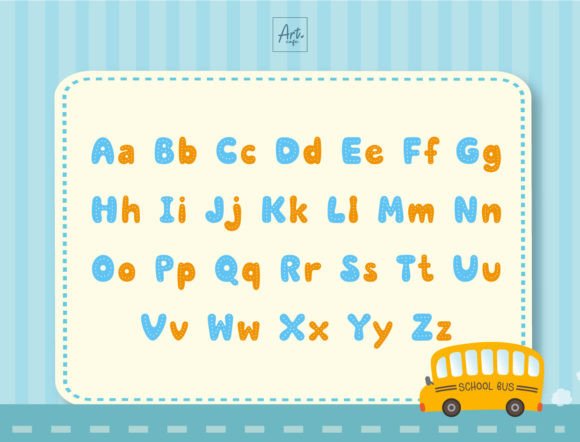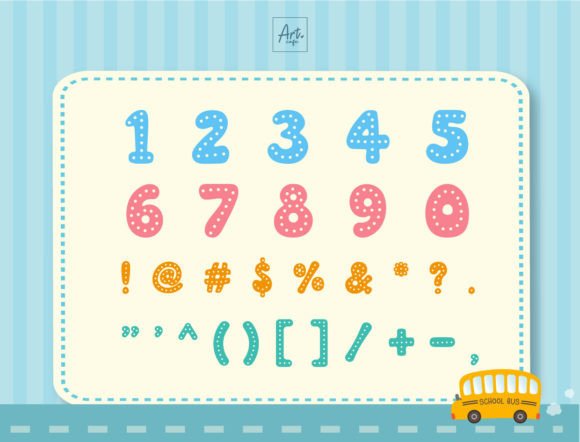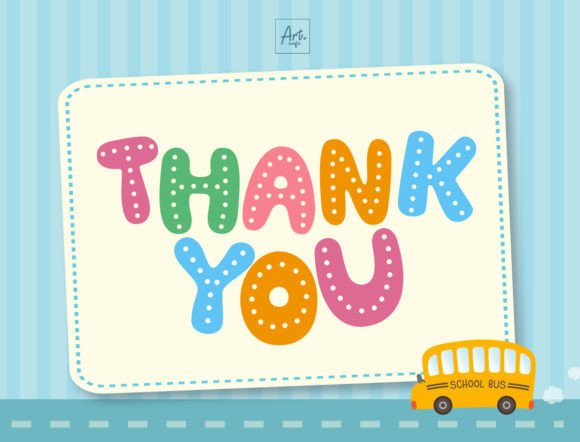
Introduction to Fancy School Font
Introducing Fancy School, an artistic font adorned with delightful dot lines, produced to command attention in poster headlines.
It’s a font that perfectly garnishes your kids’ projects adding a quirky and playful charm Experience a torrent of cuteness embedded in each character – fantastic, fun, and fabulously adorable.